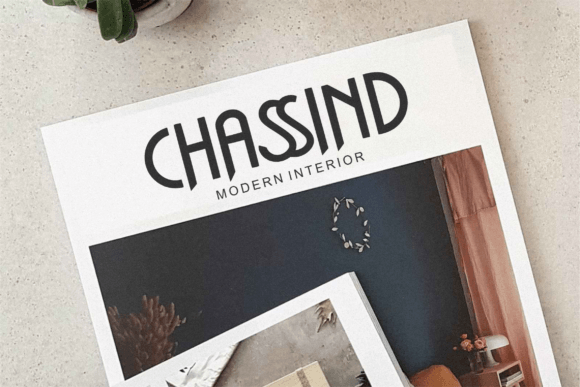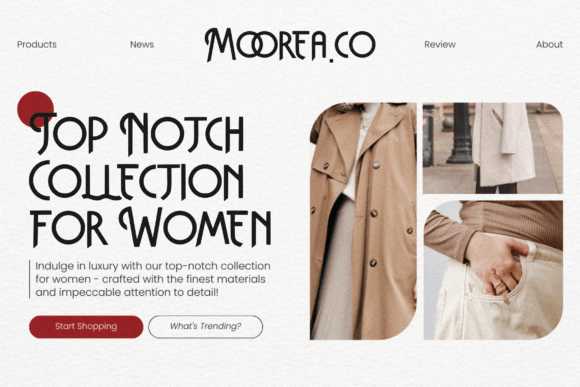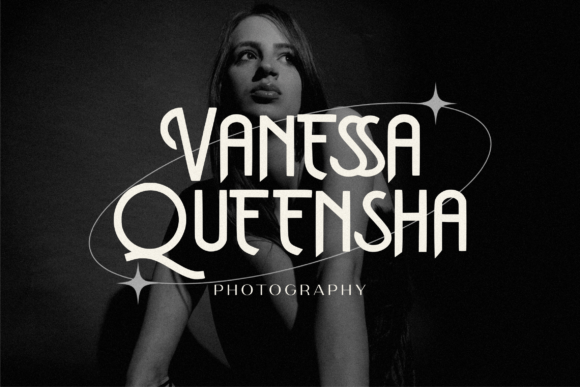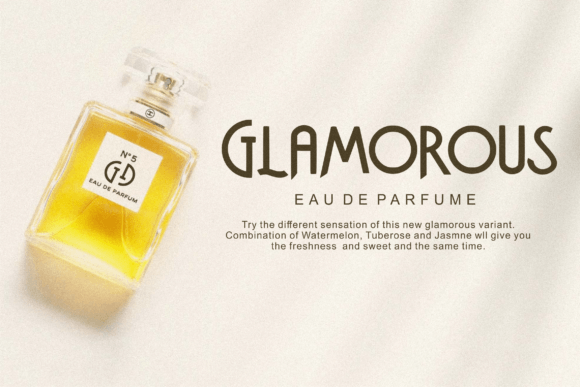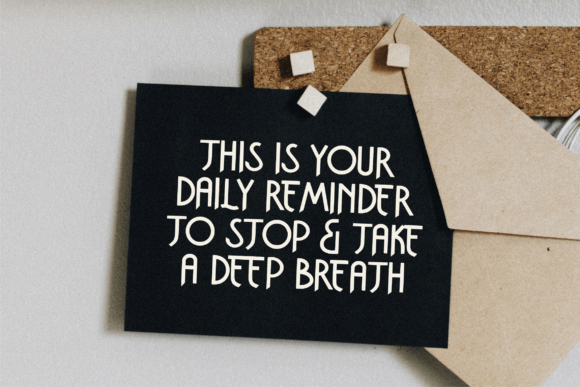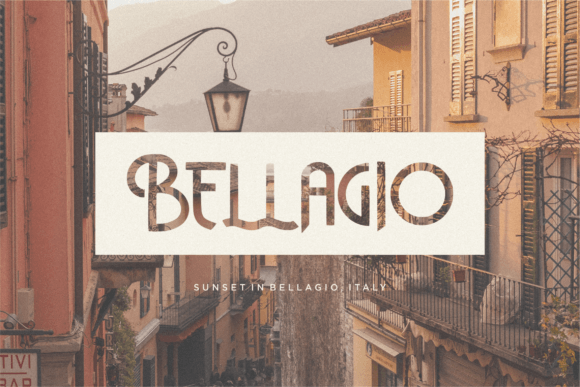
Introduction to Hoolgrown Font Font
Fonts play a crucial role in design, and the Hoolgrown Font font is a typeface that brings both character and versatility to any project. Whether you’re working on a branding project, a website, or a print design, the Hoolgrown Font font offers a unique style that can elevate your work.
Hoolgrown is a stylish and fashionable display font that embodies elegance and sophistication.
Its clean lines and carefully crafted letterforms exude a sense of modernity and grace Perfect for fashion magazines, luxury branding, or editorial layouts, Hoolgrown adds a touch of refinement to any design.
Key Features of Hoolgrown Font Font
Why Choose Hoolgrown Font Font?
The Hoolgrown Font font is more than just a typeface – it’s a design tool that helps you communicate your message with style and clarity. Its unique character set and versatile design make it suitable for a wide range of applications, from elegant invitations to bold headlines.
With its carefully crafted letterforms and balanced proportions, the Hoolgrown Font font ensures readability and visual appeal across all mediums.
What makes Hoolgrown Font font special?
The Hoolgrown Font font stands out with its unique design, exceptional readability, and versatility across various design applications.